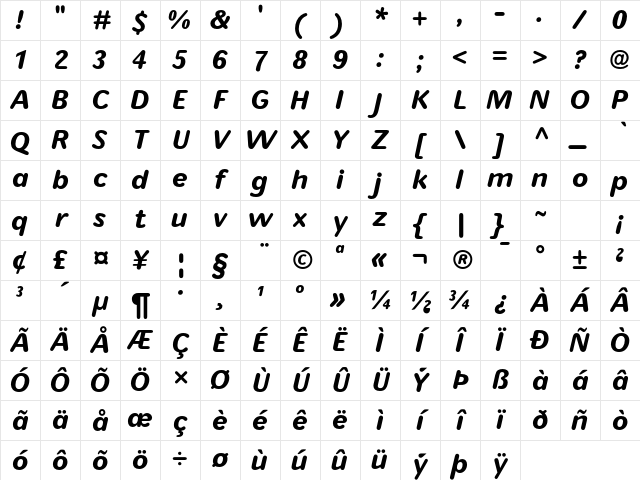
UlissaRounded BoldItalic
UlissaRounded Family
UlissaRounded BoldItalic
Design Context for UlissaRounded
UlissaRounded softens its letterforms with rounded terminals, giving it an approachable, friendly quality that works well in consumer-facing and digital contexts. The slanted form adds forward momentum and visual energy. Its bold stroke weight gives it real presence on the page.
Font Pairing: Pairs well with a rounded or humanist sans for body copy, maintaining the friendly tone without relying on UlissaRounded to carry extended reading.
Pro Tip: Use UlissaRounded for UI elements, app interfaces, and anywhere a friendly, approachable tone needs to be maintained without sacrificing clarity.